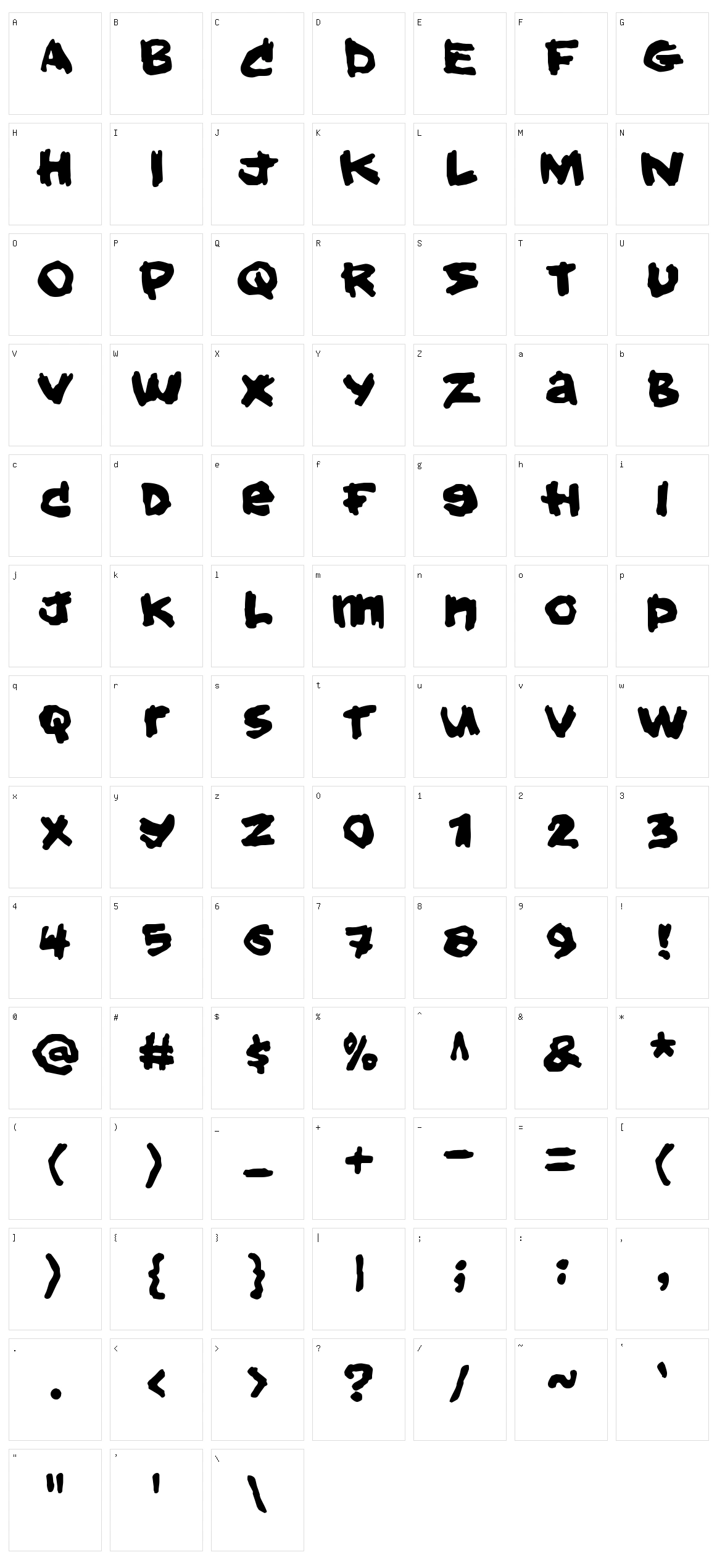
The free font Hold your breath is carefully designed by Pizzadude, showcasing a thoughtful balance of creativity and usability and falls under the Cartoon font style. When you download the ZIP file, it contains only 25.29 KB of font files, making it lightweight and quick to download. Please review the license details below to understand permitted usage and distribution rights. If license information is not available, we recommend using this font for personal projects only or contacting the author directly for commercial usage permissions.